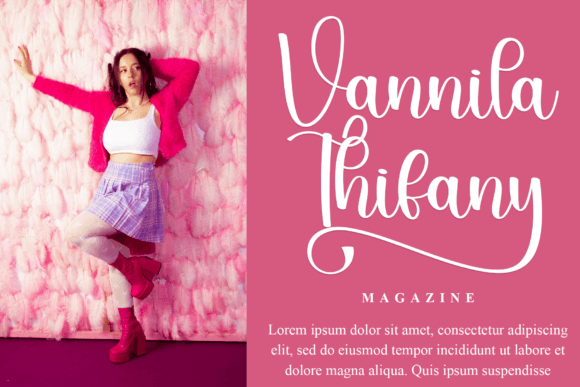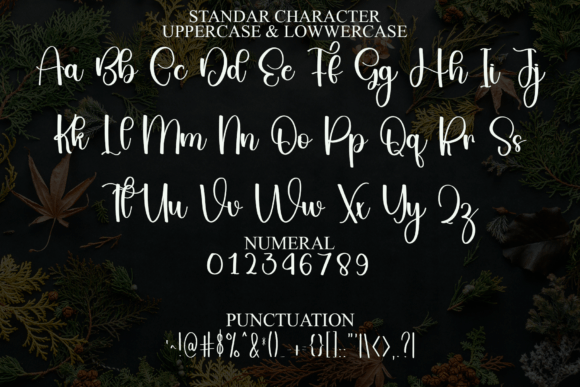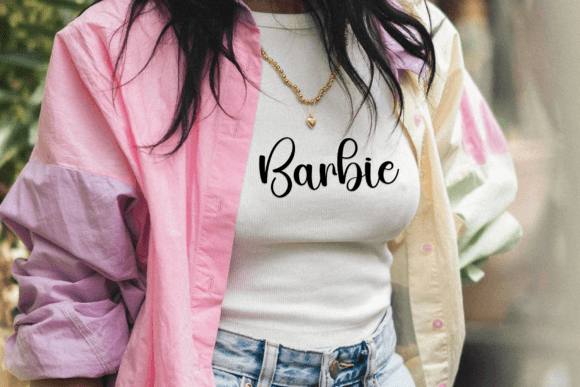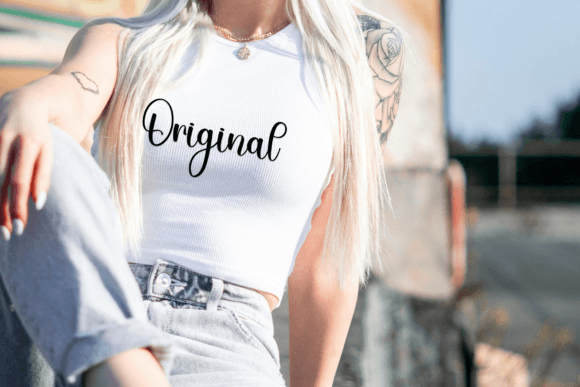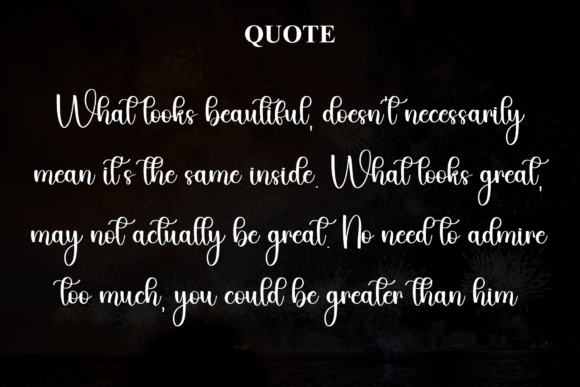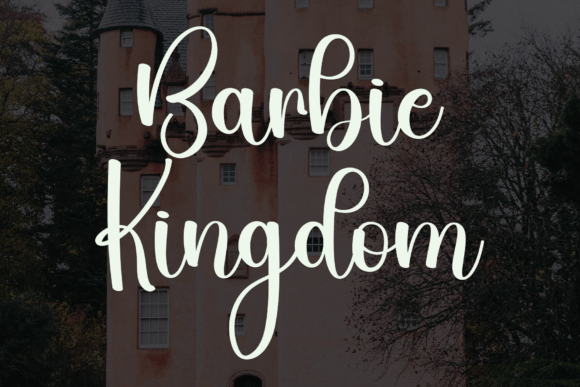
The Perfect Font for a Charming Design
Who hasn’t felt the urge to grab their favorite pen and paper, and let their creativity flow? The moment you start sketching out ideas, the possibilities seem endless. As designers, we’re always on the lookout for that special something that sets our designs apart. Enter the Barbie Charming Font, a delightful script font that exudes warmth and friendliness.
Perfect for personal projects, invitations, and social media graphics, this font’s rounded, playful strokes give a relaxed and approachable feel. The Barbie Charming Font is a valuable addition to any designer’s toolkit, adding a charming, hand-drawn aesthetic to any design. Whether you’re creating a birthday card or a social media post, this font is sure to bring a smile to your audience’s face.
Key Features of “Barbie Charming Font”
- Unique Characteristics: The font features a charming, elegant script with a feminine touch, making it perfect for designs targeting a female audience.
Barbie Charming Font Review
As a designer, I was excited to dive into the world of the Barbie Charming Font. The first thing I noticed was how beautifully feminine and elegant it looked. ✨ The flowing curves and classic feel immediately transported me to a bygone era, perfect for projects that need a touch of sophistication.
Some of the standout features of the font include:
- Highly customizable: The font comes with a range of styles and sizes, allowing for a high degree of personalization.
- Excellent legibility: Even at smaller sizes, the text remains clear and easy to read.
- Limited character set: The font only includes a basic set of characters, which may not be sufficient for certain projects.
- No bold or italic variations: While the font looks beautiful in its standard form, it can be a bit restrictive when it comes to emphasis or highlighting.
Overall, I would say that the Barbie Charming Font is a solid choice for projects that require a classic, elegant look. While it may not be the most versatile font, its strengths in customizability, legibility, and compatibility make it a great option for designers looking to add a touch of sophistication to their work.
Practical Application Guide for Barbie Charming Font
The Barbie Charming Font is perfect for creating playful and whimsical designs, such as:
- Children’s party invitations
- Wedding stationery
- Product branding